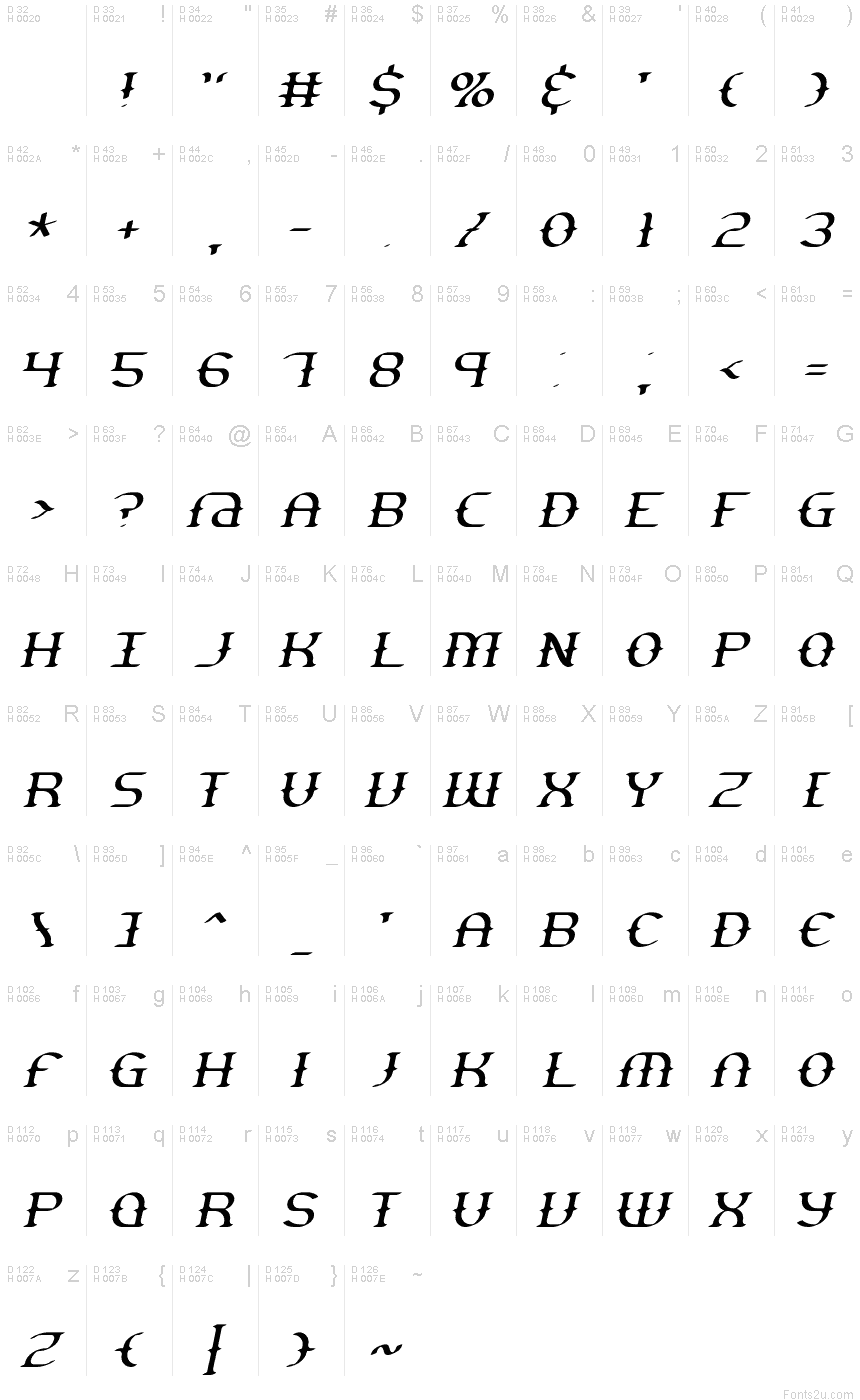
Gesture Thin Slant BRK
Gesture Thin Slant BRK font by Ænigma Fonts is a free retro display typeface with a wild, kinetic twist. Each letter feels like a quick brushstroke caught mid-swing, all leaning forward with a sharp, italic shove that gives words a sense of motion even when they’re standing still. The thin strokes and hooked curves create a slick, almost liquid texture that feels half‑psychedelic, half–vintage sci‑fi title card.
Using Gesture Thin Slant BRK, your text doesn’t just sit on the page-it lunges. This free font shines on music posters, experimental album covers, underground event flyers, game titles, edgy logotypes, and bold social graphics where attitude matters more than strict readability. Keep it large and spaced out so the slanted forms can breathe, and pair it with a simple geometric sans in small sizes to anchor its wild energy.